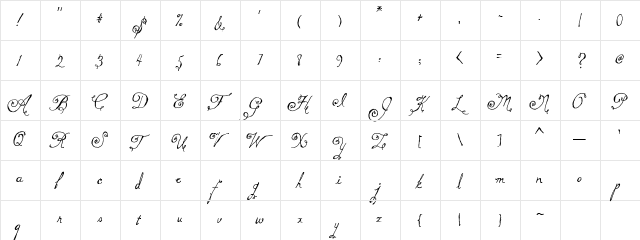
CK Pirate Hand Regular
Design Context for CK Pirate Hand Typeface
CK Pirate Hand flows with the natural rhythm of handwritten lettering, making it ideal for designs that call for warmth and personal expression.
Font Pairing: Combine CK Pirate Hand with a simple geometric sans for maximum contrast — the tension between flowing curves and clean structure is a classic typographic pairing.
Pro Tip: Use CK Pirate Hand for short runs of text — names, titles, or taglines. Extended body copy in script faces tires the eye quickly.